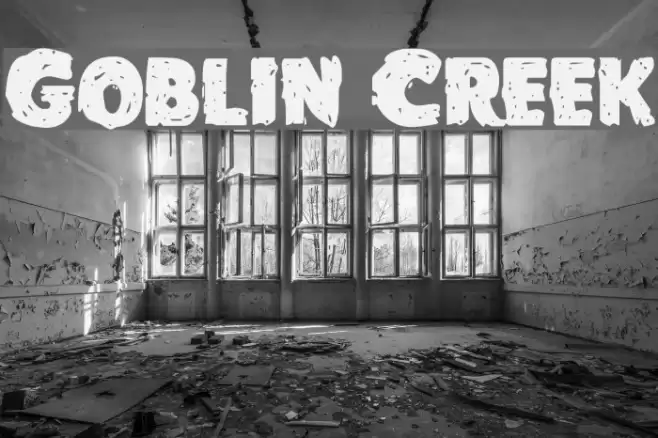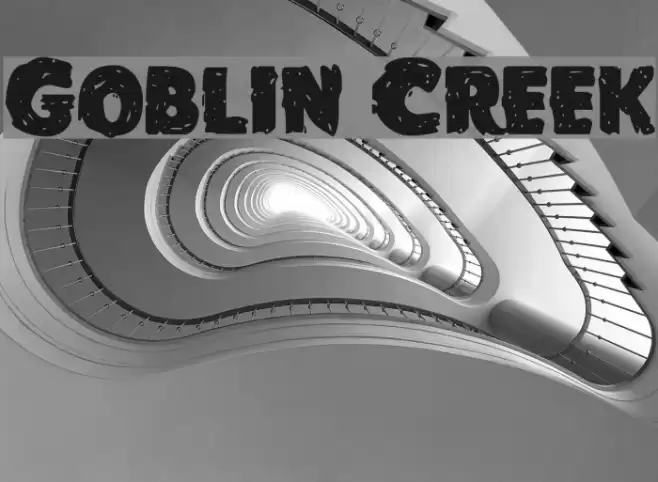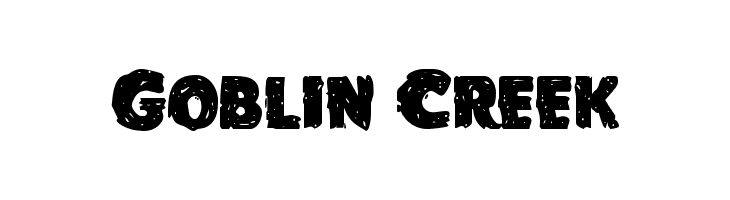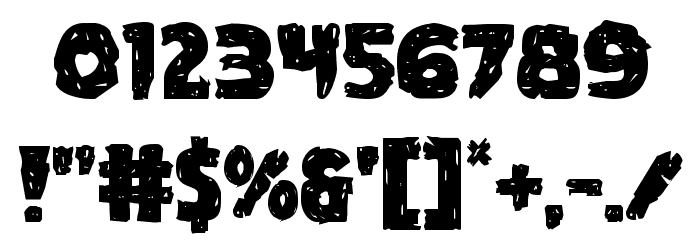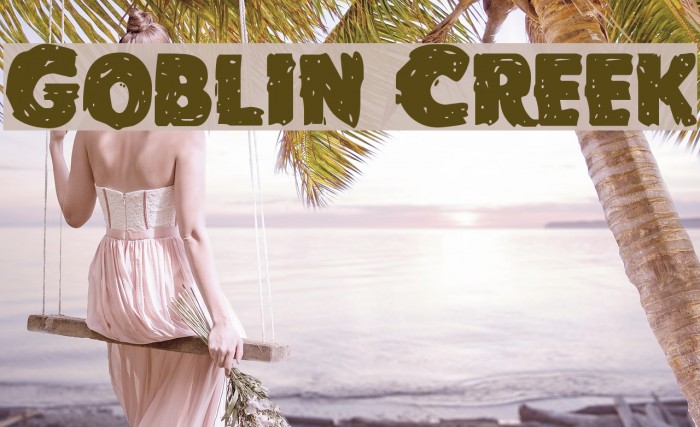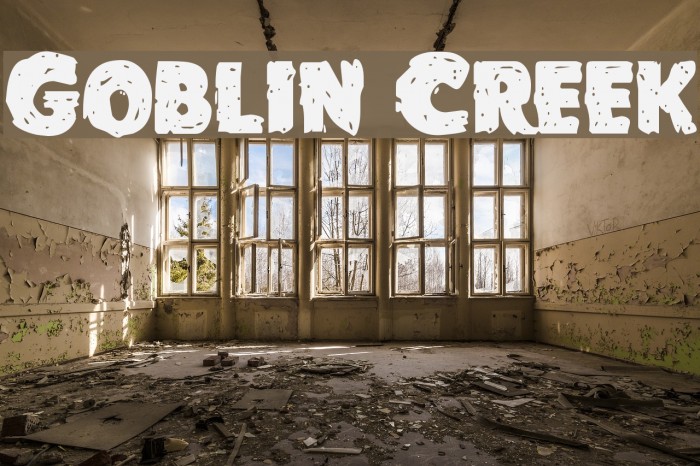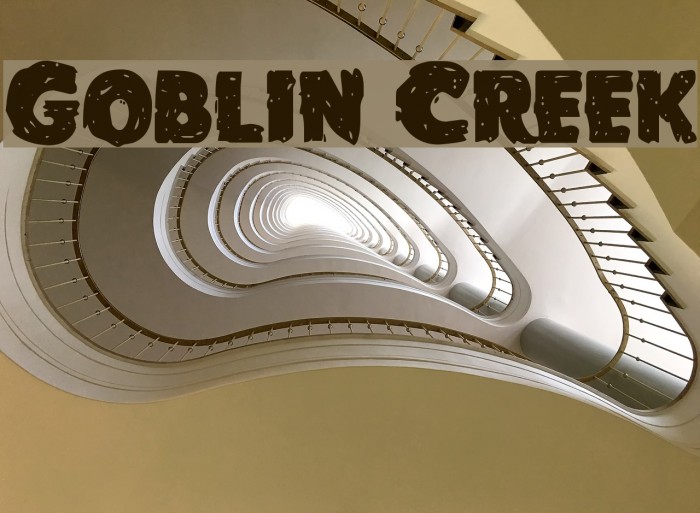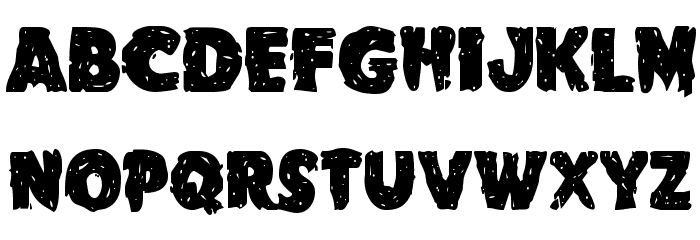
Goblin Creek Font
Goblin Creek Description
This font features a bold and playful design with a distressed, textured appearance that gives it a unique, hand-crafted feel. The characters are thick and robust, with irregular edges that add to its quirky and whimsical style. The uppercase and lowercase letters maintain a consistent weight, providing a cohesive look across the alphabet. The numbers and special characters follow the same design principles, ensuring uniformity throughout. This font's distinctive style makes it ideal for creative projects that require a touch of personality and flair.
A bold, textured font with a playful and distressed appearance from Horror fonts.
- Proposed Projects: Perfect for Halloween-themed designs, children's book covers, playful posters, and creative branding projects.